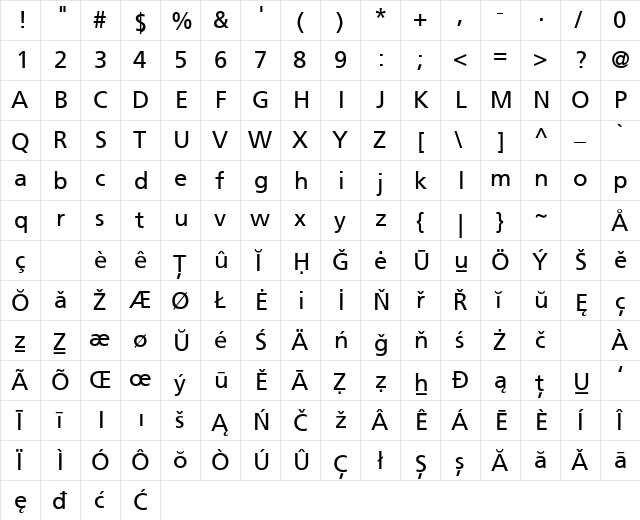
Frutiger SBIN Rm v.1 Roman
Design Context for Frutiger SBIN Rm v.1 Typeface
Frutiger SBIN Rm v.1 takes a measured approach to typography — its balanced proportions and neutral character make it a reliable workhorse for both digital and print work.